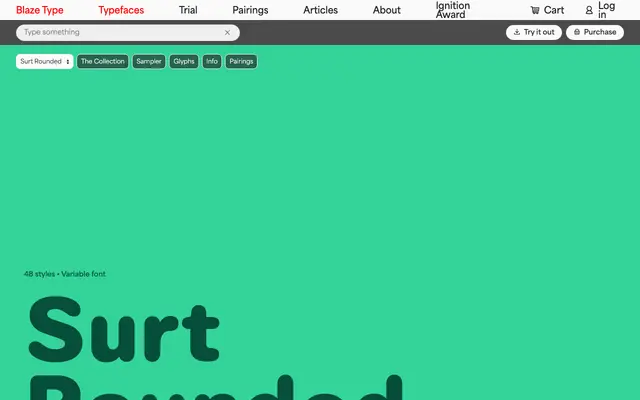
Surt Rounded
A rounded grotesque spanning three width families — Normal, Expanded and Extended — across 48 styles with variable font support.
Built as a companion to the Surt family, the rounded variant softens the grotesque structure with consistently rounded terminals throughout. Eight weights from Light to Black run across all three width families, each with matching italics, giving a total of 48 styles. The variable font format allows continuous interpolation across weight and width axes.
A grotesque sans-serif with rounded terminals across all strokes, organised into three width variants — Normal, Expanded and Extended — placing it firmly in the rounded grotesque subcategory.